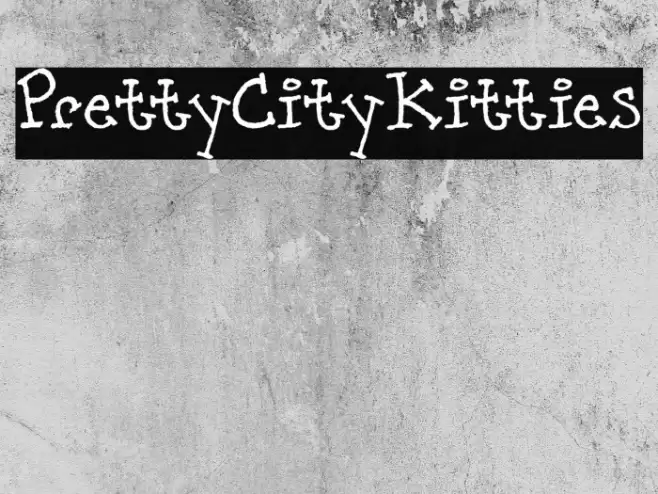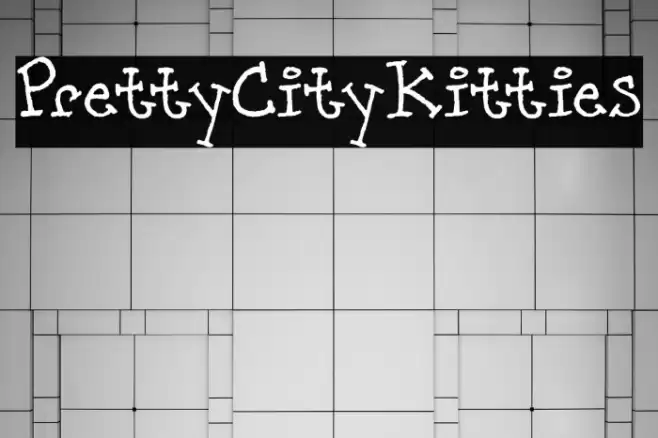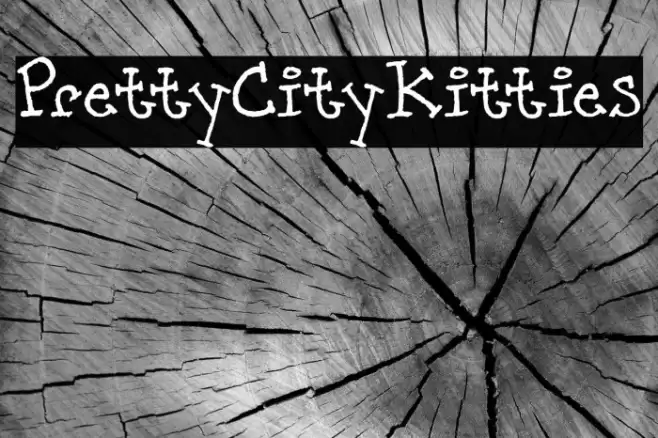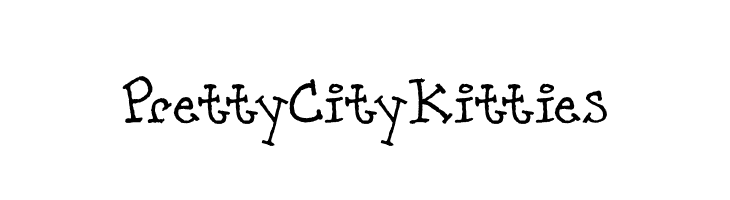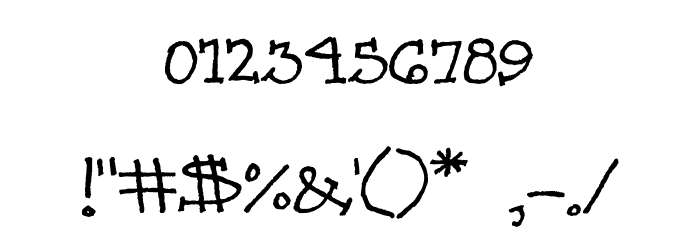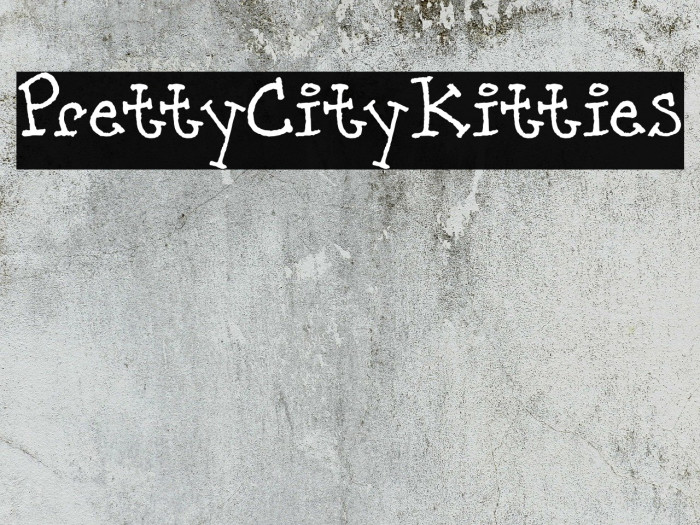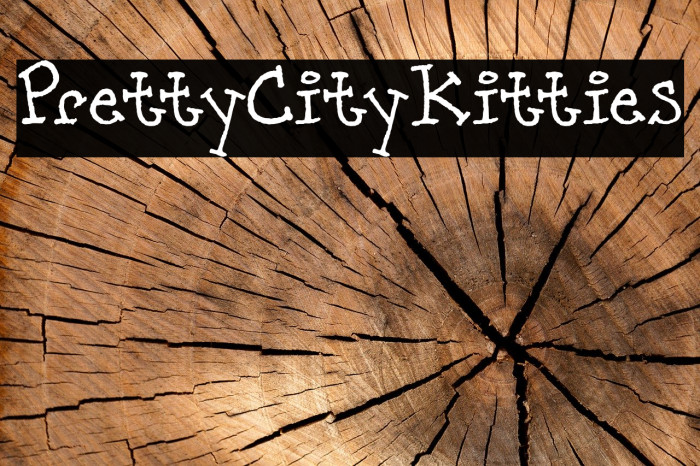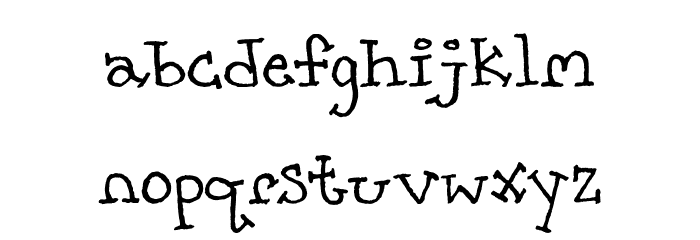
PrettyCityKitties Font
PrettyCityKitties Description
This font features a playful and whimsical design, characterized by its uneven, hand-drawn appearance. The letters have a slightly irregular baseline, giving them a casual and informal feel. The strokes are varied in thickness, adding to the font's quirky and artistic style. The uppercase and lowercase letters maintain a consistent style, with rounded edges and a slightly tilted orientation. The numbers and special characters follow the same playful aesthetic, making this font suitable for creative and fun projects.
A playful, hand-drawn font with a whimsical and artistic style from Uncategorized fonts.
- Proposed Projects: Ideal for children's books, greeting cards, playful branding, and creative posters.
- Use Case: Headlines, Logos, Creative projects